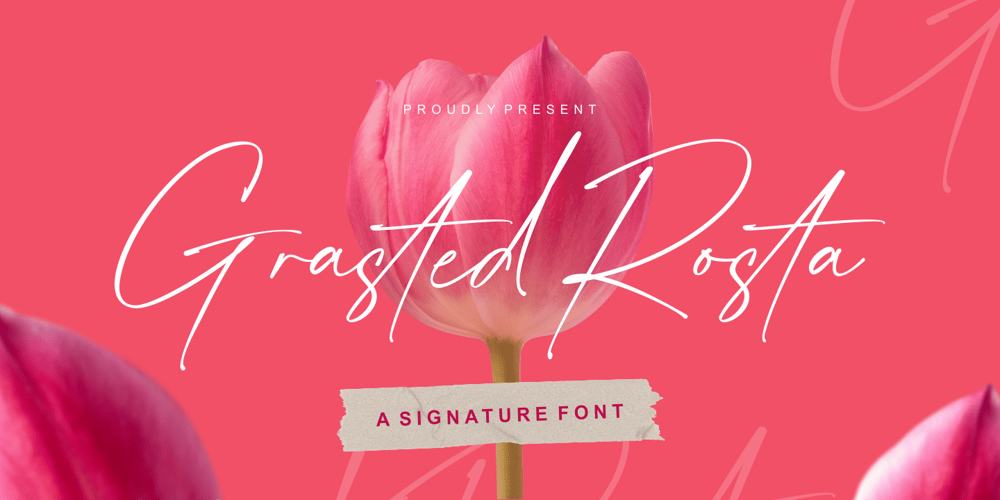
Grasted Rosta
Grasted Rosta font
Grasted Rosta Font Family was designed by Riyadh Rahman and published by Ergibi Studio. Grasted Rosta contains 1 styles and family package options. Grasted Rosta is a modern and elegant handcrafted signature font perfect for branding, photography, invitations, quotes, watermarks, advertisements, product designs, social media posts, stationery, labels, and more! Grasted Rosta includes Multilingual Options to make your branding globally acceptable.Thank you by Ergibi Studio